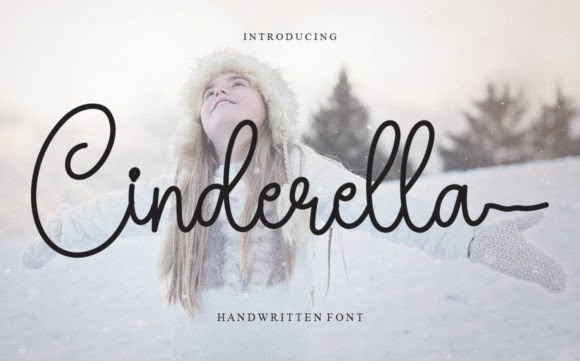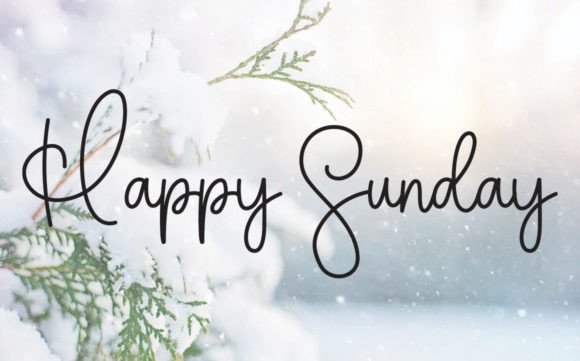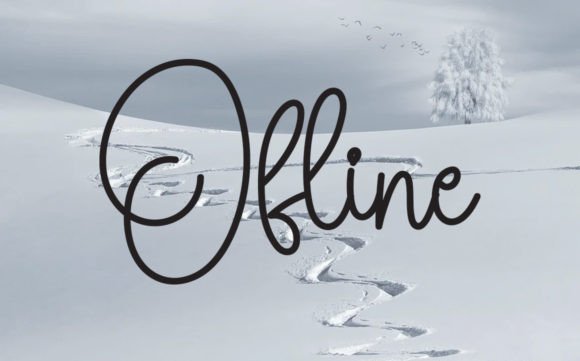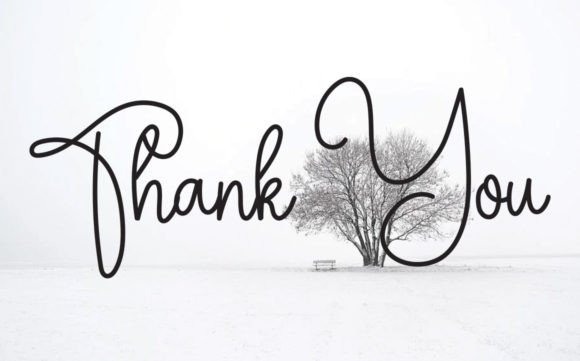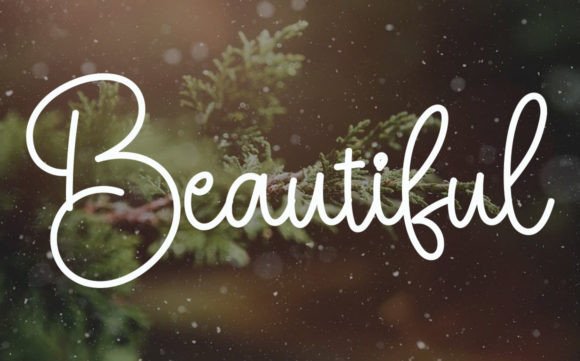
Cinderella Font
About Cinderella Font
Cinderella is an enchanting handwritten font that adds a touch of magic and romance to your text. This versatile font spans a wide spectrum of applications, from greeting cards to headlines, ensuring it adds a romantic and captivating feel to your next project.
The charm of Cinderella lies in its carefully crafted script, characterized by flowing and elegant lines that bring a sense of enchantment to the written word. The handwritten nature of the font adds a personal and authentic touch, making it suitable for various creative endeavors.
Imagine Cinderella gracing the pages of greeting cards, creating a romantic and heartfelt element. Envision it making headlines that captivate attention with its elegant and expressive script. Whether used in digital or print media, this font is designed to bring a romantic and enchanting quality to your projects.
The versatility of Cinderella makes it a reliable choice for a range of design applications. Its romantic feel enhances the emotional impact of your text, making it well-suited for projects where a touch of elegance and enchantment is desired.
In essence, Cinderella is more than just a font; it’s a creative tool crafted to bring enchantment and romance to your projects. Let it be the choice that adds a romantic and captivating touch, creating a memorable and magical experience for your audience.